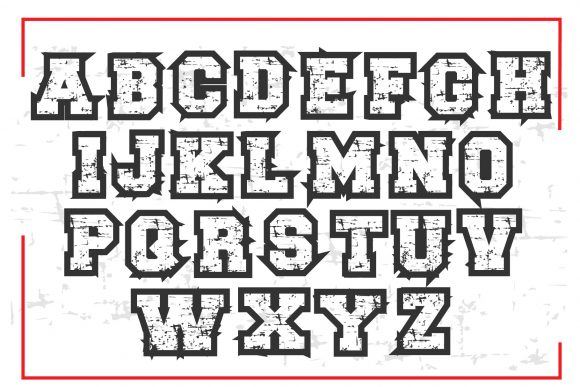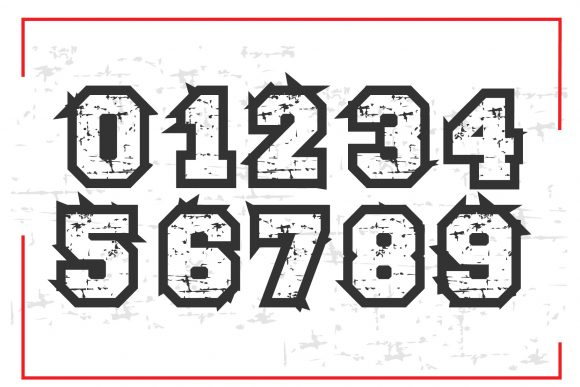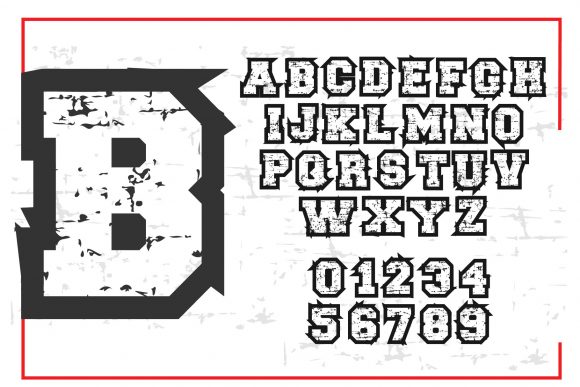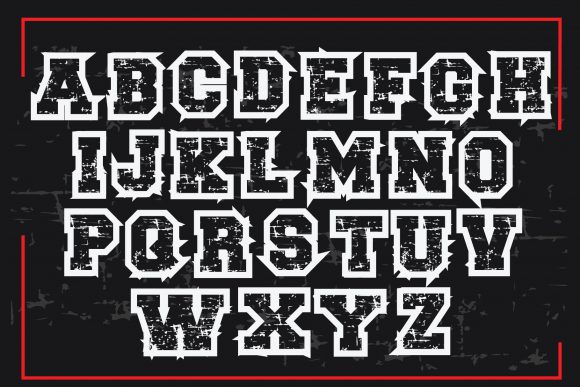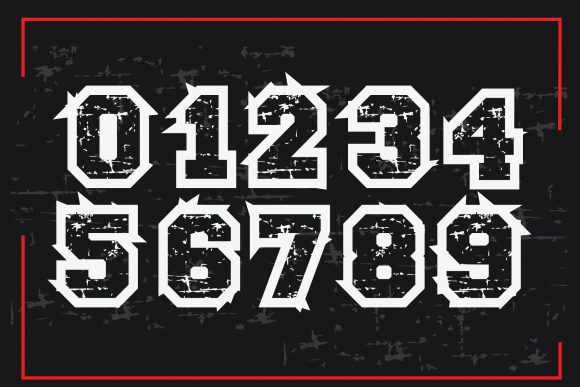
The Perfect Font for Your Next Big Design
Have you ever been in a rush to meet a design deadline, pouring over lines of code and trying to get your creative juices flowing? We’ve all been there. But what if I told you there’s a font that can give you the energy and motivation you need to power through even the toughest design challenges?
Meet the Bang Bang! Font, a bold, thick lettered display font that’s perfect for designs that scream speed and power. Whether you’re creating a logo for a high-performance sports team or designing a poster for a thrilling action movie, this font is sure to get your message across with style and impact.
As a designer, you know how valuable the right font can be in elevating your work and making it truly unforgettable. The Bang Bang! Font is a game-changer, offering a unique combination of style and versatility that’s sure to take your designs to the next level.
Bang Bang! Font Key Features
- Unique Characteristics: Bang Bang! Font features a bold, playful, and energetic design, making it perfect for use in headlines, titles, and other display typography applications.
- Font Metrics: Bang Bang! Font has a x-height of 0.45, an average stem width of 0.25, and a maximum height of 1.25, making it suitable for use in a variety of font sizes and line heights.
Bang Bang! Font Review
At first glance, Bang Bang! Font seems like a quirky and energetic addition to any design project. ✨ The font’s unique, hand-drawn feel adds a touch of personality to text, making it perfect for creative projects or advertisements that need to stand out. The font is also surprisingly legible, which is a must-have for any font.
Here are some specific things that work well:
- ✨ The font’s irregular shapes and lines add visual interest to text, making it more engaging for the reader.
- ✨ The font is highly customizable, with a wide range of weights, styles, and sizes available.
- ✨ Bang Bang! Font is perfect for creating a fun and playful atmosphere in your designs.
- ⚠️ The font may not be suitable for formal or professional projects, as its informal feel may come across as unprofessional.
- ⚠️ The font’s irregularities may make it difficult to read in certain contexts, such as in small text or in situations where readability is crucial.
- ⚠️ Bang Bang! Font may not be suitable for projects where consistency is key, as its unique feel may be jarring in certain situations.
Overall, Bang Bang! Font is a fun and quirky addition to any design project. While it may not be suitable for all projects, it’s perfect for creative projects or advertisements that need to stand out. With its unique feel and high customizability, Bang Bang! Font is a great choice for designers looking to add some personality to their work.
Tips for using the Bang Bang! font in Canva: Use it for eye-catching headings and titles to add a pop of color and energy to your designs.
Tips for using the Bang Bang! font in Adobe Photoshop or Illustrator: Use it for bold, graphic titles and headings to add a touch of modernity and playfulness to your designs.
Tips for using the Bang Bang! font in PowerPoint or Word: Use it for headings and titles to add a fun and energetic touch to your presentations and documents.